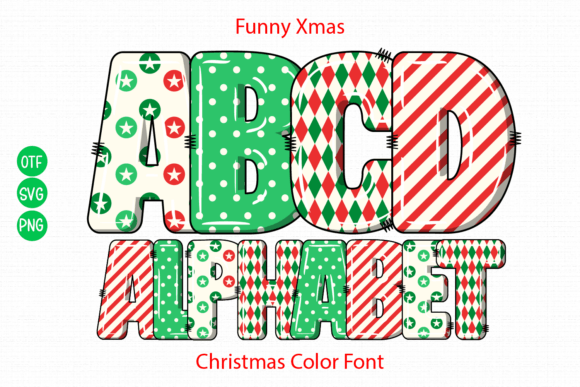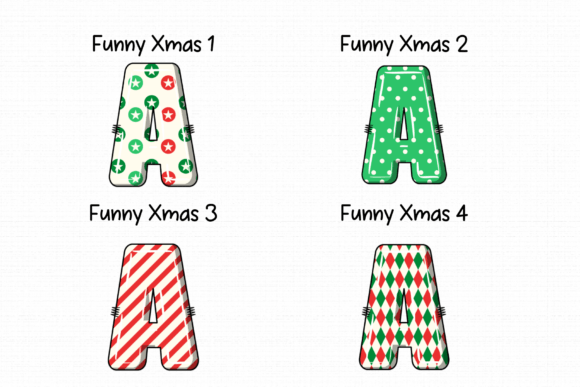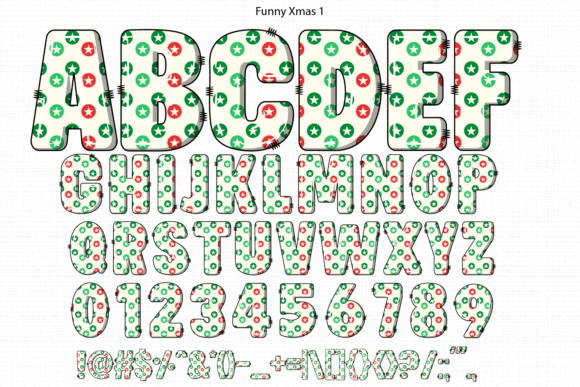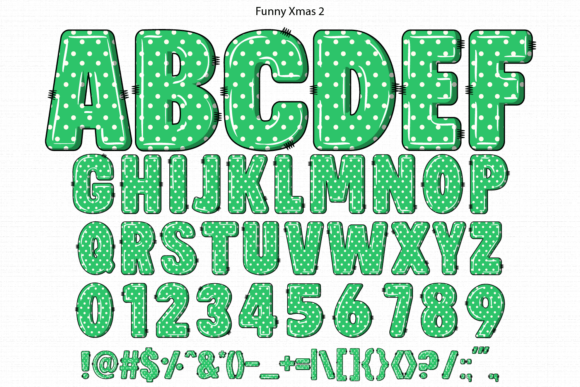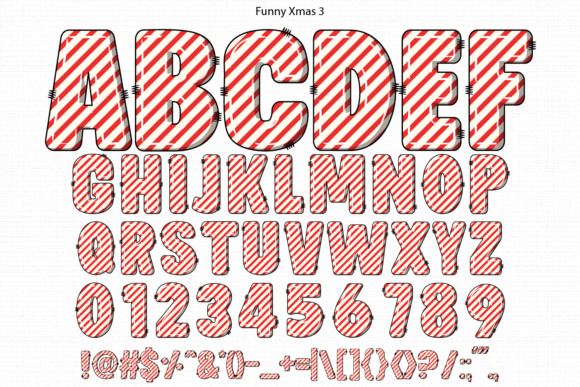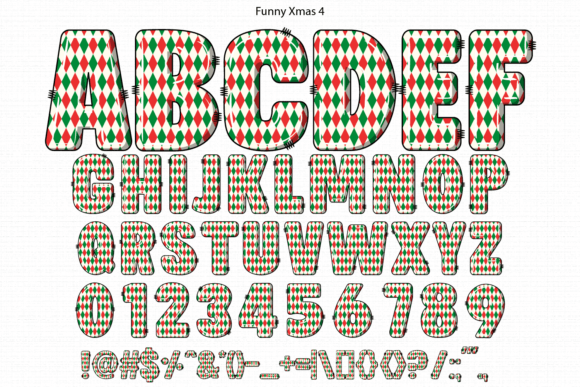
Deck the Halls with Holiday Cheer: Discover the Funny Xmas Font
Do you remember the moment when you first conceptualized a holiday-themed project? Maybe it was a festive blog post, a playful logo, or a warm greeting card. Whatever it was, the excitement and creativity that followed were contagious! As designers, we know that the right font can make all the difference in bringing our visions to life. This is where the Funny Xmas Font comes in – a vibrant, color font that embodies the spirit of joy and originality.
With the Funny Xmas Font, you can infuse your designs with a festive kick, making them stand out from the crowd. Whether you’re a seasoned pro or a beginner, this font is an invaluable asset to have in your design arsenal. Its versatility and compatibility with various design programs make it an impeccable fit for a wide range of projects, from logos to planners and beyond.
Key Features of “Funny Xmas Font”
- Character Set: Latin, Cyrillic, and Greek alphabets, with over 300 unique glyphs, including festive symbols and ornaments.
- Unique Characteristics: Features a playful, hand-drawn design with bold lines and vibrant colors, perfect for adding a touch of whimsy to holiday-themed designs.
- Font Style: A bold, sans-serif font with a festive twist, ideal for use in headings, titles, and short paragraphs.
Designer Review: Funny Xmas Font
First off, let’s talk about what works well with this font. ✨ It’s perfect for adding a touch of whimsy to your holiday designs. The playful, handwritten style is sure to bring a smile to your customers’ faces. I also appreciate the variety of weights and styles available, making it easy to find the perfect fit for your project.
The font is also relatively easy to read, even at smaller sizes, which is a must for any font intended for digital use. Additionally, the font’s eccentricities are well-balanced, preventing it from feeling too kitschy or overwhelming.
- ⚠️ Limited language support: The font only includes basic Latin characters, which may be a limitation for designers working on projects that require a wider character set.
- ⚠️ Not ideal for serious or formal designs: While the font is perfect for festive and playful projects, it may not be the best choice for more formal or professional designs.
- ⚠️ Some characters may not render correctly: Depending on the device or software used, some characters in the font may not display as intended, which can be frustrating for designers.
Overall, I think the Funny Xmas Font is a fun and versatile addition to any designer’s toolkit. While it may have some limitations, its playful charm and ease of use make it a great choice for holiday-themed projects or any design that needs a touch of whimsy.
“Funny Xmas Font” is ideal for creating humorous and playful designs for Christmas cards, social media posts, and holiday-themed graphics. You can use it to add a touch of whimsy to your designs and make them stand out.